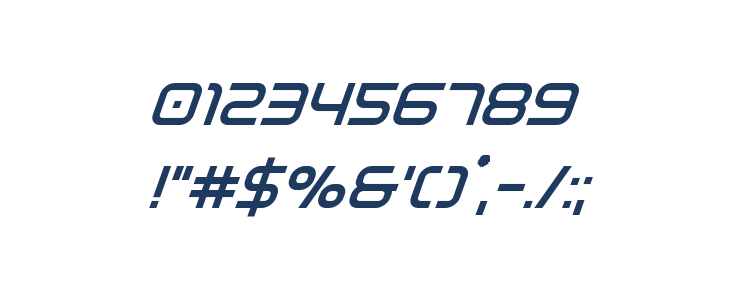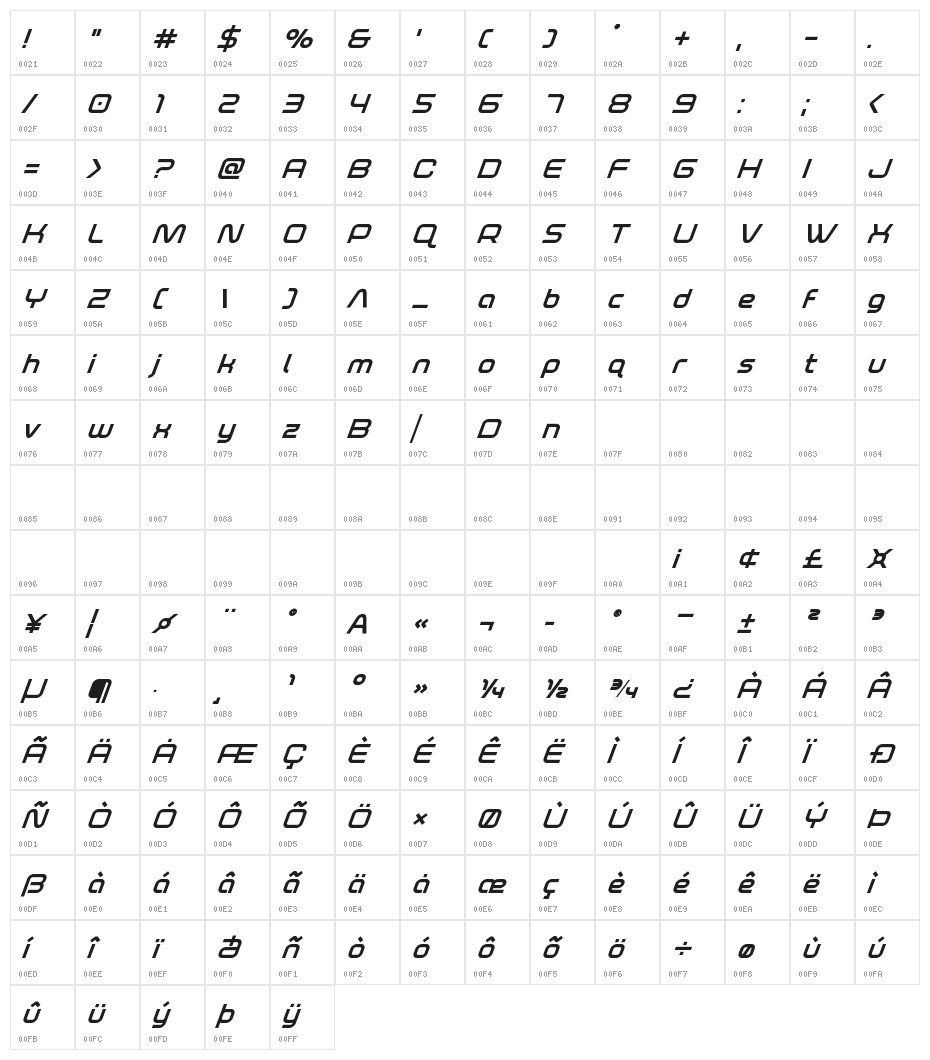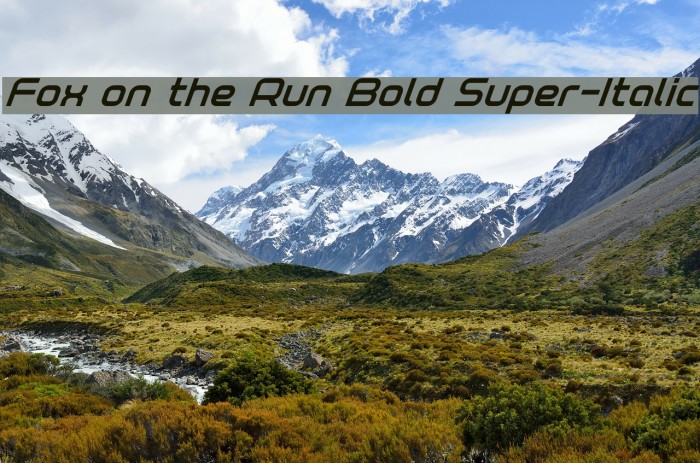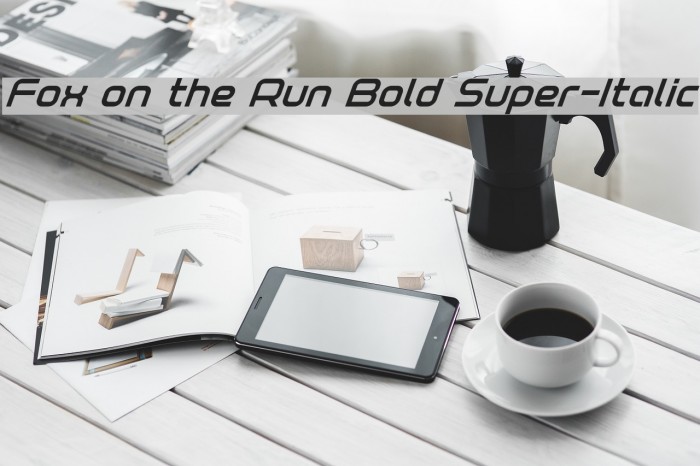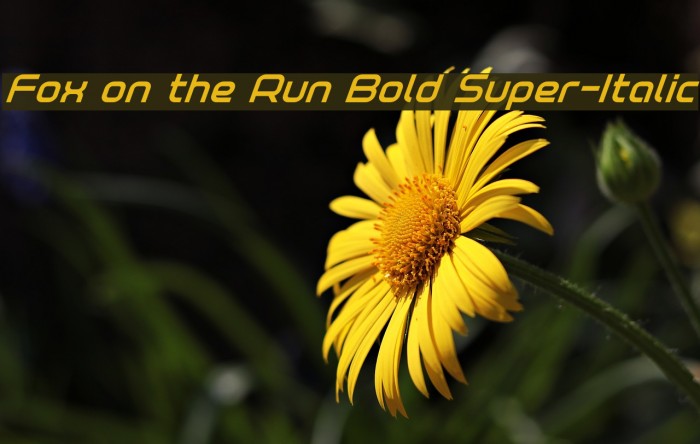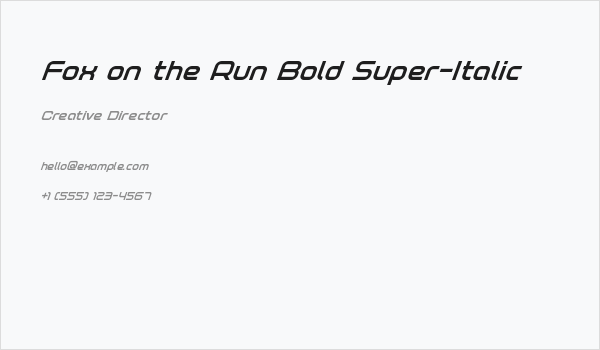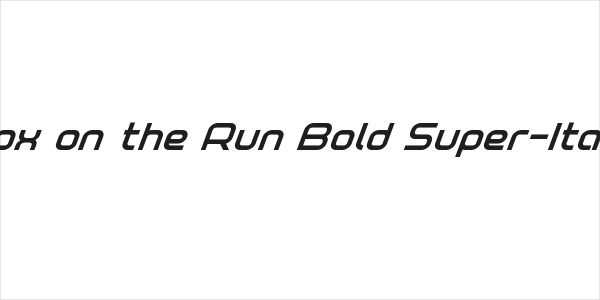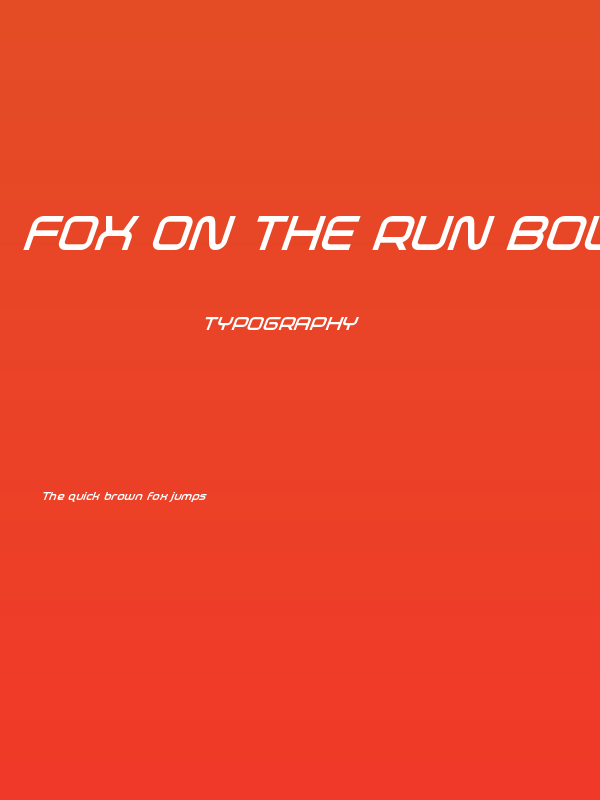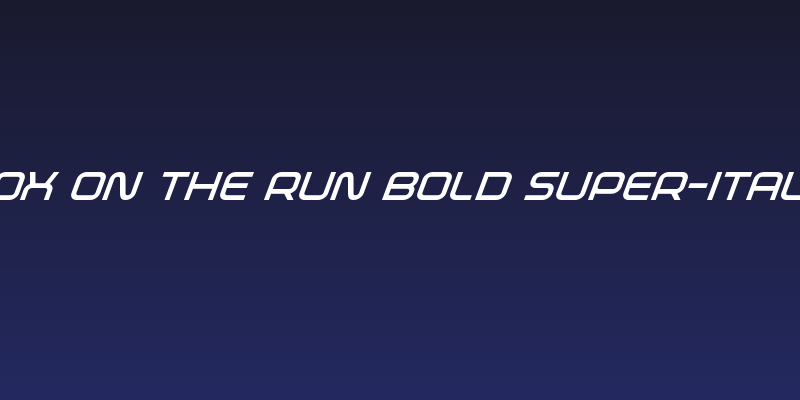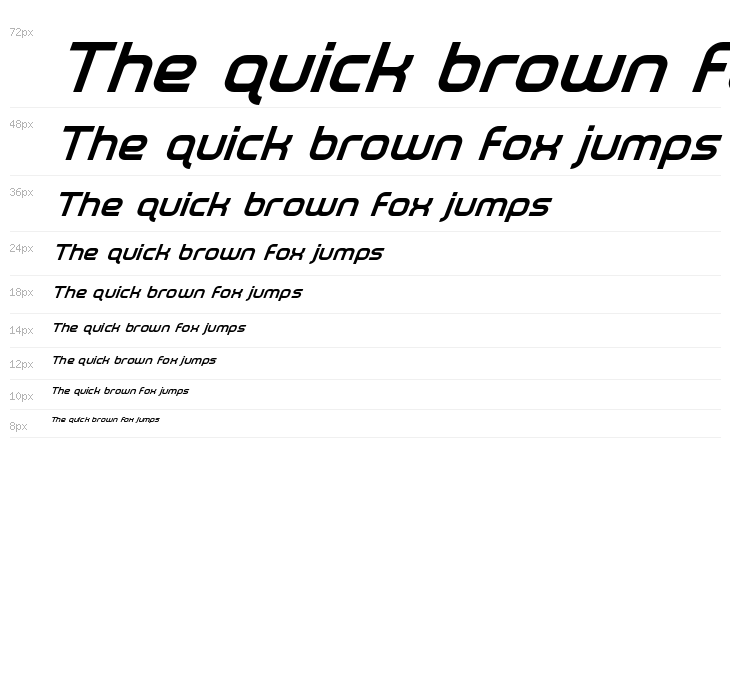
Fox on the Run Bold Super-Italic Font
Fox on the Run Bold Super-Italic Description
This font exudes a dynamic and modern flair with its bold and italicized style. The characters are slanted, giving a sense of motion and speed, which is further emphasized by the rounded edges and smooth curves. The uppercase and lowercase letters maintain a consistent height, creating a uniform appearance. Numbers and special characters follow the same design principles, ensuring a cohesive look across all elements. The font's bold weight and italic slant make it ideal for attention-grabbing headlines and impactful designs.
| Proposed Projects | Ideal for sports branding, automotive advertisements, dynamic posters, and modern web design. |